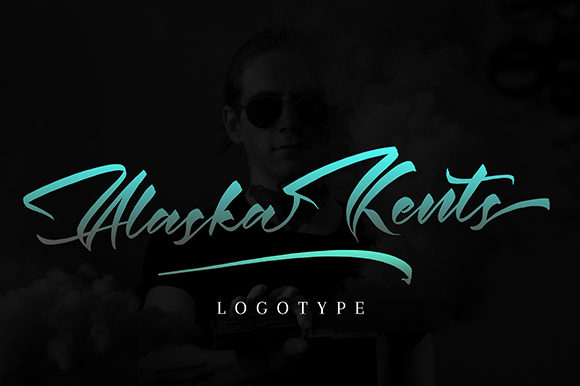
The Elegant Alaska Kents Font: A Designer’s Dream Come True
I’ll never forget the time I was working on a wedding invitation project, and my client asked for a font that was elegant, yet playful. I scoured the internet, tried out dozens of fonts, but nothing seemed quite right. That was until I stumbled upon Alaska Kents. ✨ This beautiful handwritten script has been a game-changer for me, and I’m excited to share its awesomeness with you!
An Honest Review of Alaska Kents
• 💫 Elegant feel that’s perfect for a variety of design projects, from wedding invites to branding materials
• 🎨 Beautifully crafted with a unique, hand-drawn aesthetic
• 🤝 Works well with both digital and print designs
• ⚠️ Some users may find the font a tad too ornate for very casual or playful projects
• 🤔 Limited availability of certain OpenType features in certain software
The Story Behind Alaska Kents
Alaska Kents was designed by a talented type designer who wanted to create a font that captured the essence of handwritten elegance. Inspired by classic calligraphy and modern handwriting, Alaska Kents is a beautiful blend of traditional and contemporary styles.
Author Pineungtype & Missinklab
What type of designs is Alaska Kents best suited for? Alaska Kents is perfect for a variety of design projects, including wedding invites, branding materials, and more.
Is Alaska Kents easy to read? Yes, Alaska Kents is highly legible, even at smaller font sizes.